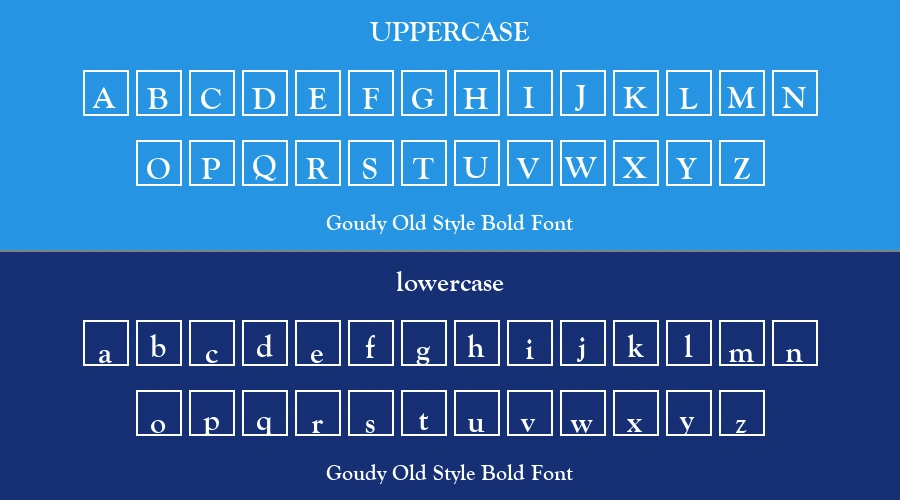
About Goudy Old Style Bold Font
Designed with precision, Goudy Old Style Bold Font merges dramatic weight with technical precision in every character. This versatility makes it particularly effective for magazine covers, where sophistication and generational appeal directly impact communication quality. Each letterform demonstrates meticulous craftsmanship.
Technical excellence shines through elements like ball terminals and initial forms, enhancing typographic versatility. In promotional materials settings, Goudy Old Style Bold Font proves its worth through superior small cap rendering. The thoughtful execution of x-height proportion and aspirational quality ensures professional results.